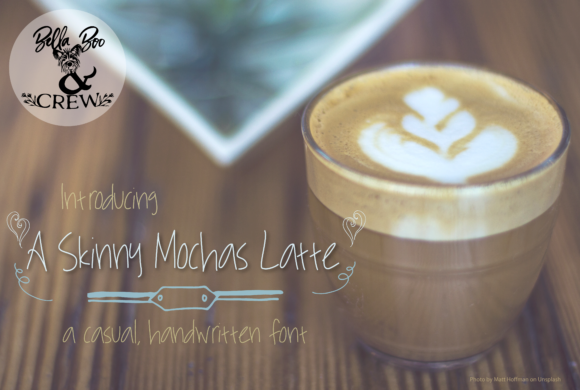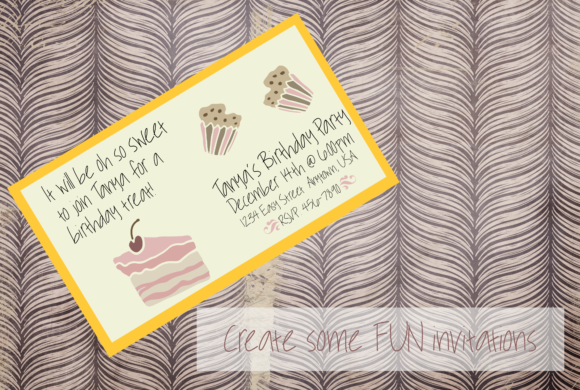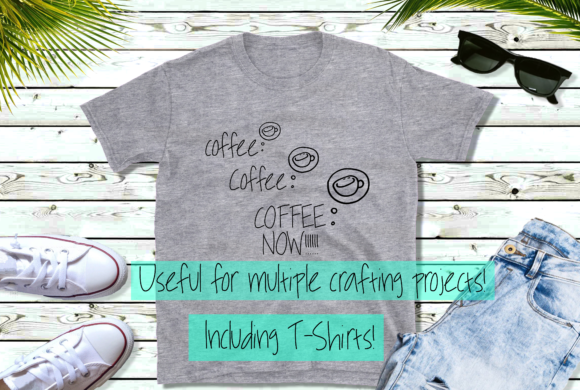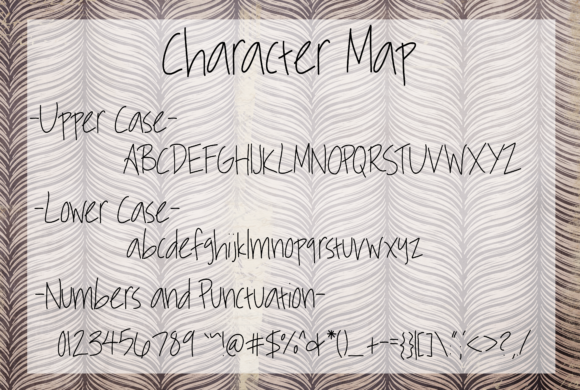
A Skinny Mocha Latte Font
About A Skinny Mocha Latte Font
This charming handwritten font is the perfect way to add a lively and authentic touch to your next design idea! It will turn any design project into a true piece of art.